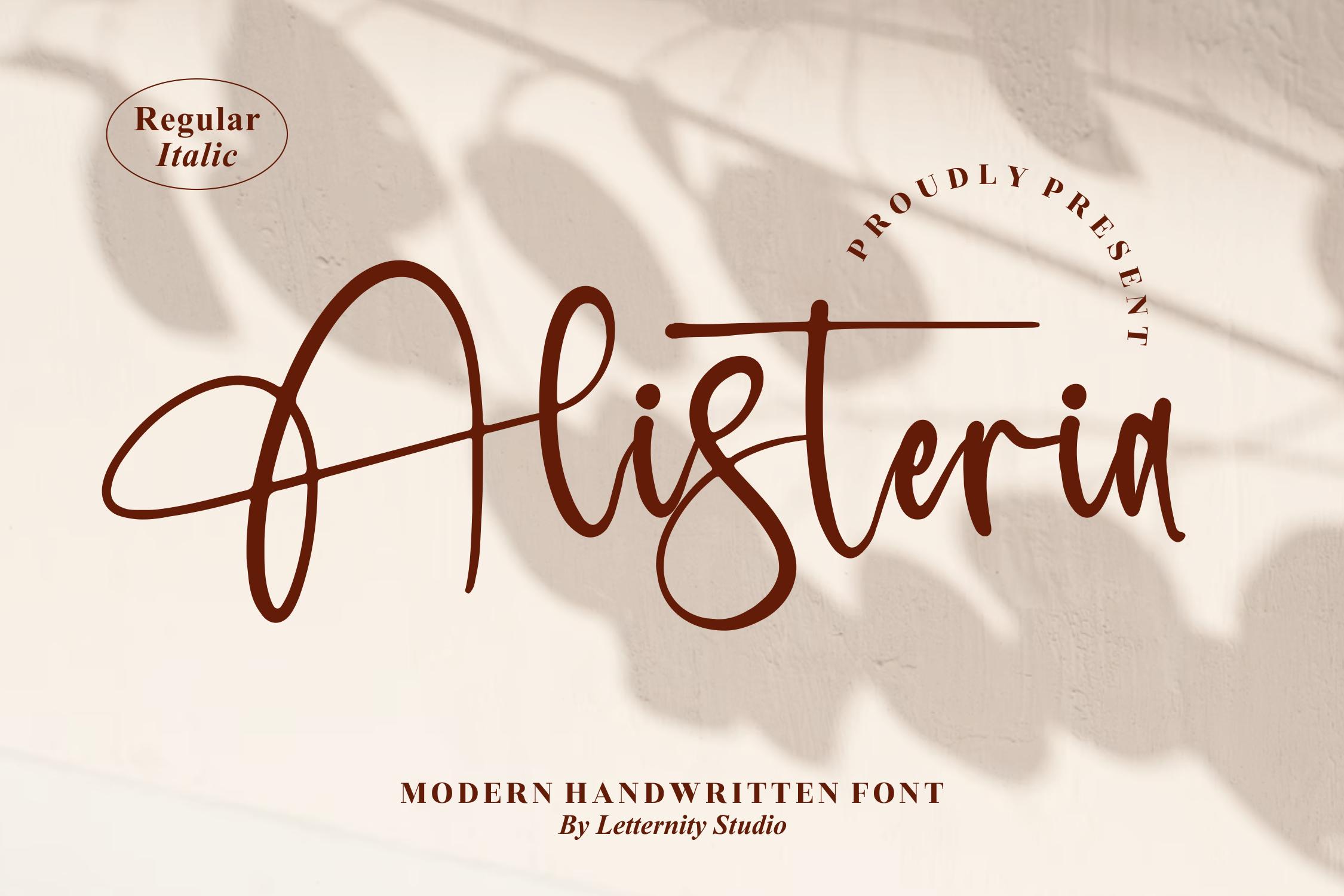
Alisteria Font Description
Alisteria is a beautiful calligraphy typeface with characters that dance along the baseline. It will add a luxury spark to any design project that you wish to create! This font is PUA encoded which means you can access all of the amazing glyphs and ligatures with ease!